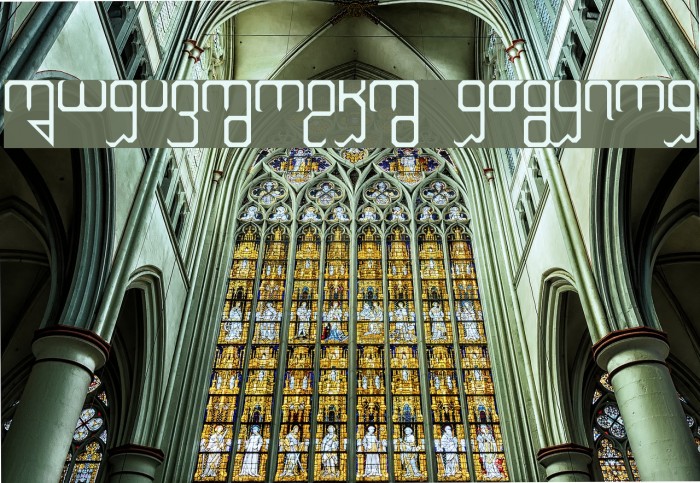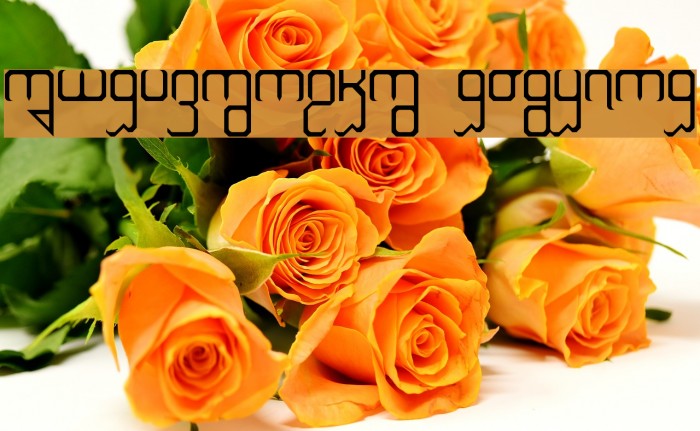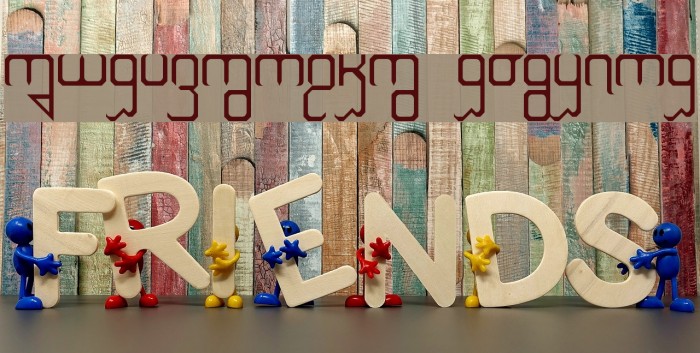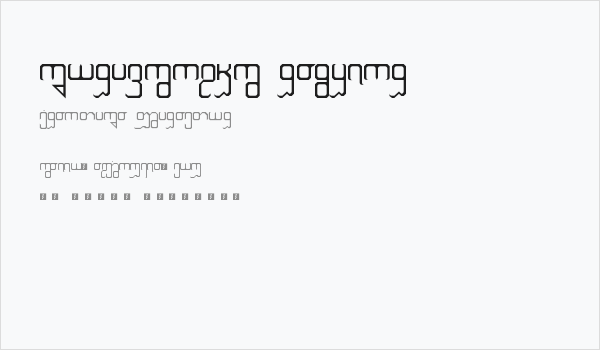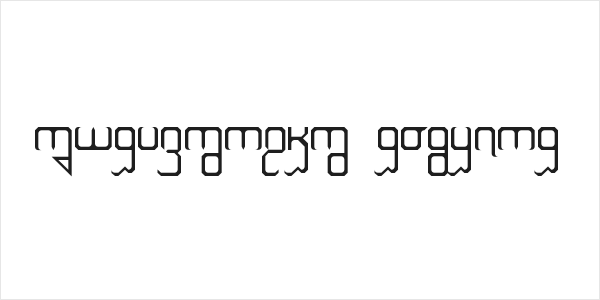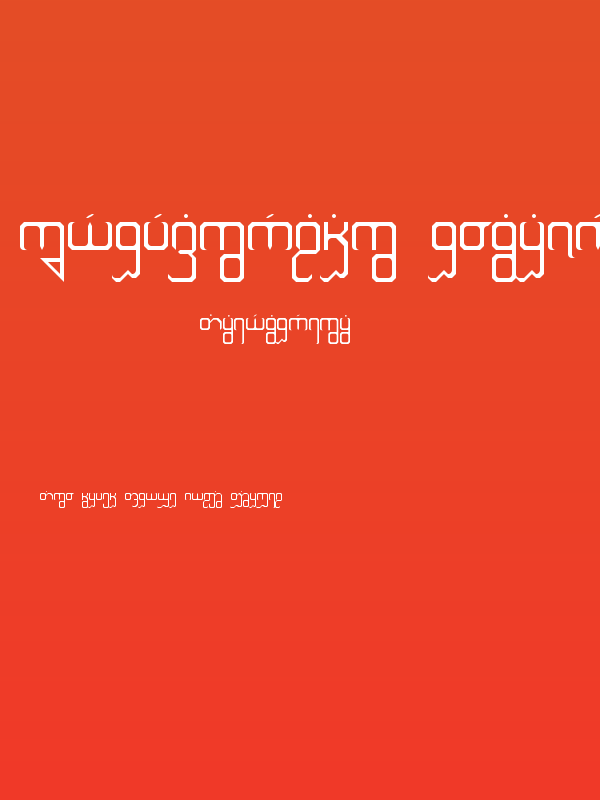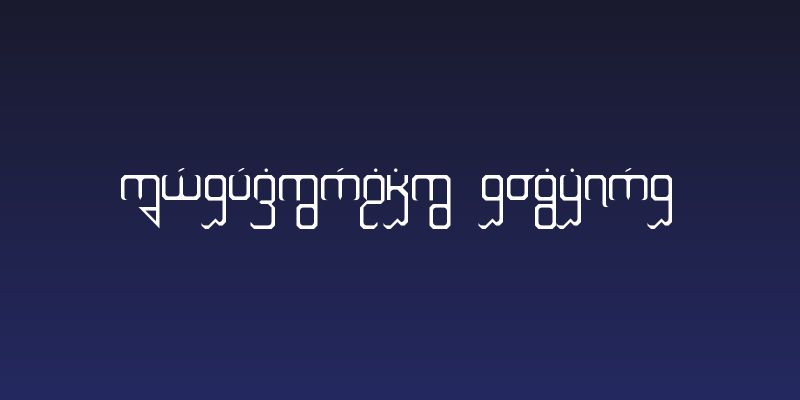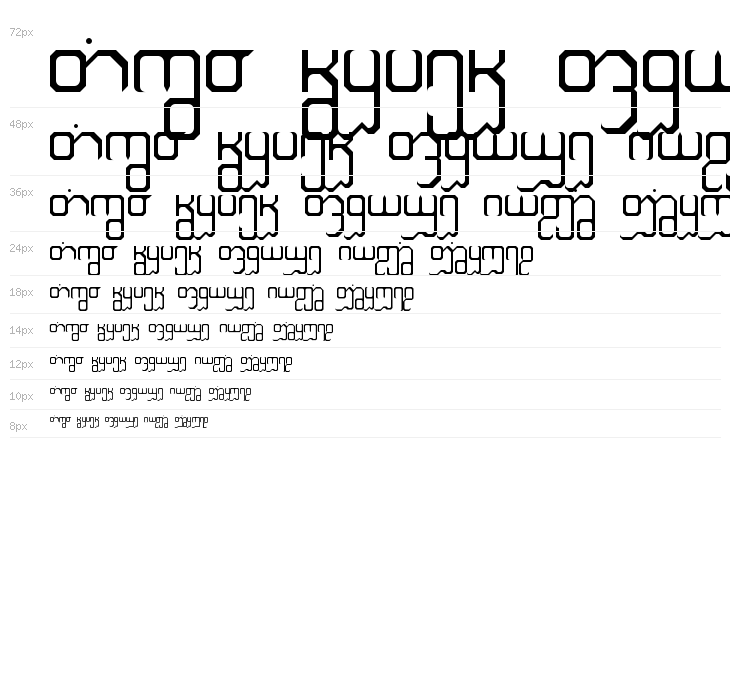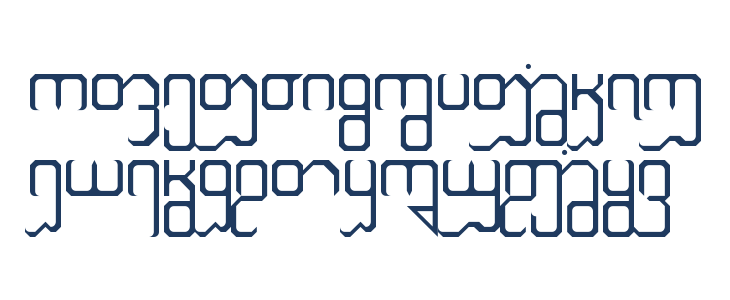
Vorizhaskh Regular Font
Vorizhaskh Regular Description
This font features a highly decorative and abstract style, characterized by its unique geometric shapes and intricate patterns. Each character is composed of angular lines and curves, creating a futuristic and almost cryptic appearance. The design includes small dots and accents that add to its ornamental quality. The font's structure is consistent, with a uniform height and width across all characters, giving it a cohesive and balanced look. Its distinct style makes it stand out, suitable for creative and artistic projects where a bold statement is needed.
| Overall Style | Futuristic, Abstract |
| Proposed Projects | Ideal for sci-fi themed posters, video game graphics, album covers, and branding for tech companies. |